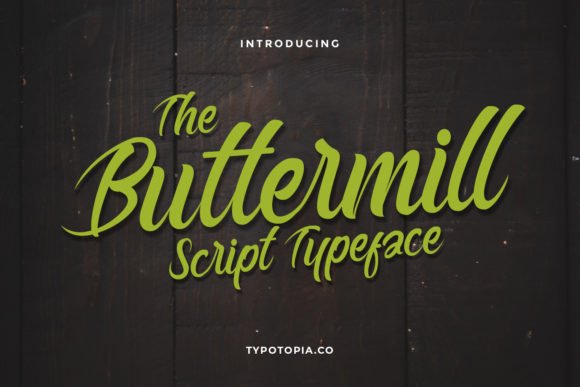
The Perfect Brush Stroke for Your Next Project
Have you ever sat in front of your computer, staring at a blank screen, waiting for the perfect font to come along and bring your design to life? That’s exactly what happens when you discover the Buttermill Font. Its elegant touch and flowing handwritten style make it the perfect addition to any project.
But what makes the Buttermill Font so special? Its timeless design is not only visually stunning, but also incredibly versatile. Whether you’re a seasoned designer or just starting out, this font is sure to bring a touch of sophistication to your work. With its distinct style, you’ll be able to create spectacular designs that truly stand out from the crowd.
Buttermill Font Key Features
- Font Family: Buttermill Font is a unique, hand-drawn font that combines modern and vintage elements.
- Character Set: The font includes a wide range of characters, including uppercase and lowercase letters, numbers, punctuation, and special characters.
- Unique Characteristics: Buttermill Font features a distinctive, hand-drawn style with subtle imperfections, giving it a unique and human touch.
Buttermill Font Review
First off, I have to say that the Buttermill font has some great qualities. ✨ The design is playful and whimsical, making it perfect for any project that needs a touch of personality. The font is also highly legible, even at smaller font sizes, which is a major plus in my book.
One of the things I love most about Buttermill is its versatility. ✨ It can be used for a wide range of projects, from children’s books to branding and advertising. The font also comes with a wide range of styles, from bold and playful to delicate and elegant.
While Buttermill is a great font, there are a few limitations that I think are worth mentioning. ⚠️ One of the biggest drawbacks is that the font can be a bit too playful for some projects. If you’re looking for a font that’s more serious or professional, you might want to look elsewhere.
Additionally, I’ve noticed that the font can be a bit inconsistent in terms of spacing and alignment. ⚠️ This can be a bit frustrating, especially when working with complex layouts.
Overall, I think the Buttermill font is a great choice for designers who are looking for a playful and versatile font. While it may have some limitations, I think the benefits far outweigh the drawbacks. With a little bit of tweaking and finessing, I think Buttermill can be a real showstopper.
- Playful and whimsical design
- Highly legible, even at smaller font sizes
- Versatile and can be used for a wide range of projects
- Wide range of styles, from bold and playful to delicate and elegant
Buttermill Font: A Practical Application Guide
For optimal results, use Buttermill Font for headings and titles to add a touch of elegance to your design.
Use Buttermill Font to create intricate typography and add a touch of sophistication to your designs.
Use Buttermill Font to create professional-looking presentations and documents.
Buttermill Font is ideal for:
- Editorial and publishing designs
Alternatives to Buttermill Font
Copperplate Font
Copperplate Font is a elegant and refined font, perfect for formal invitations, certificates, and other official documents. It is similar to Buttermill Font in its cursive style, but has a more luxurious and vintage feel.
When to use: Formal invitations, certificates, official documents
Comparison: Copperplate Font has a more luxurious feel and is better suited for formal documents, while Buttermill Font is more versatile and can be used in a variety of contexts.
Edwardian Script
Edwardian Script is a classic and sophisticated font, ideal for luxury brands, high-end products, and special occasions. It has a similar feel to Buttermill Font, but with a more elegant and refined touch.